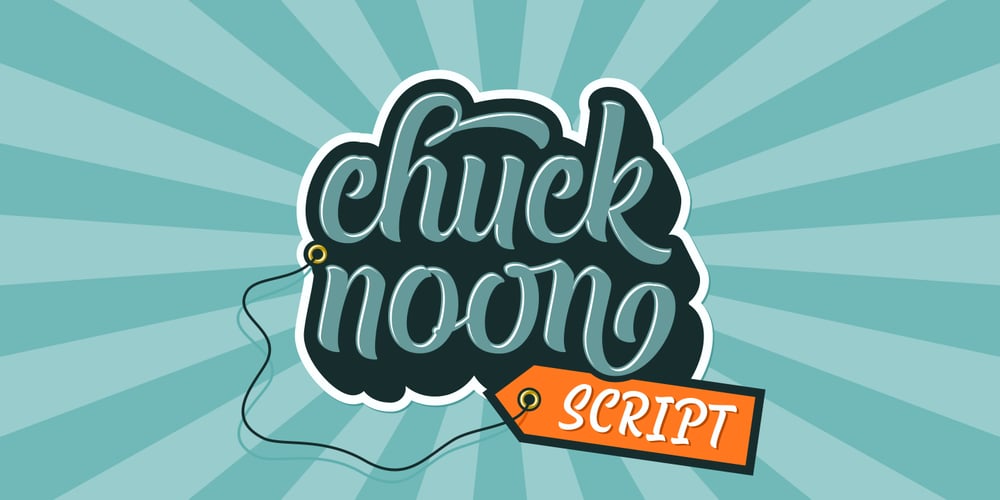
Chuck Noon Script Font Family was designed by Fahrizal Tawakkal and published by Fontdation. Chuck Noon Script contains 2 styles and family package options. After long time no script, finally we released our new Chuck Noon Script. A clean and bold script fonts that offers you a natural hand-lettering experience. Handcrafted and digitally checked with high attention to the details, we’re a sucker for clean lines and crispy edges too, just like you. Available in two styles; Script and Brush, their dynamic letterforms work like magic, whether you go all caps or using it normally as a script. Suits best for logotype, poster/t-shirt designs, food/beverage labels, hipster quotes, greeting cards, wedding invitations, and many more.